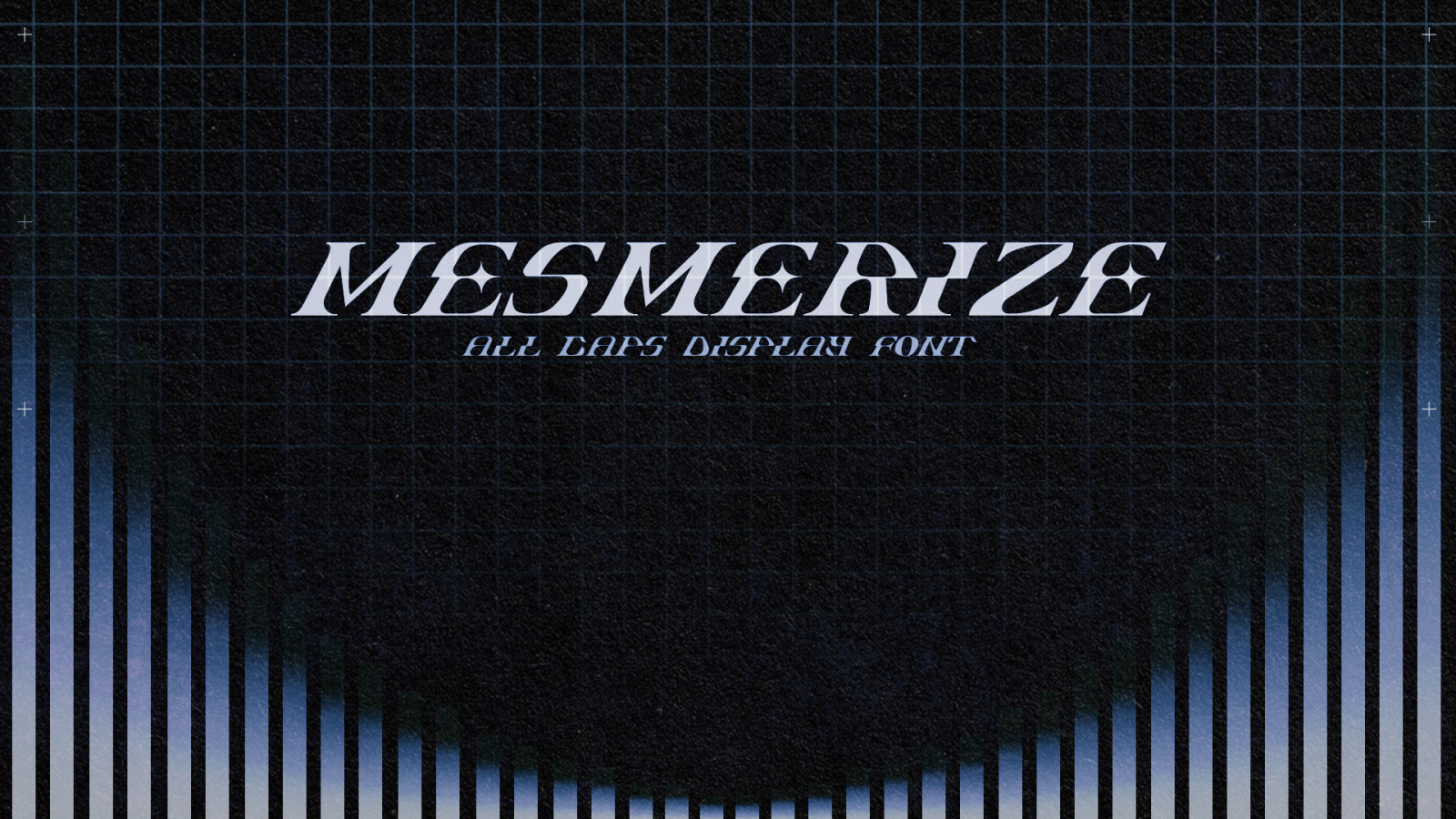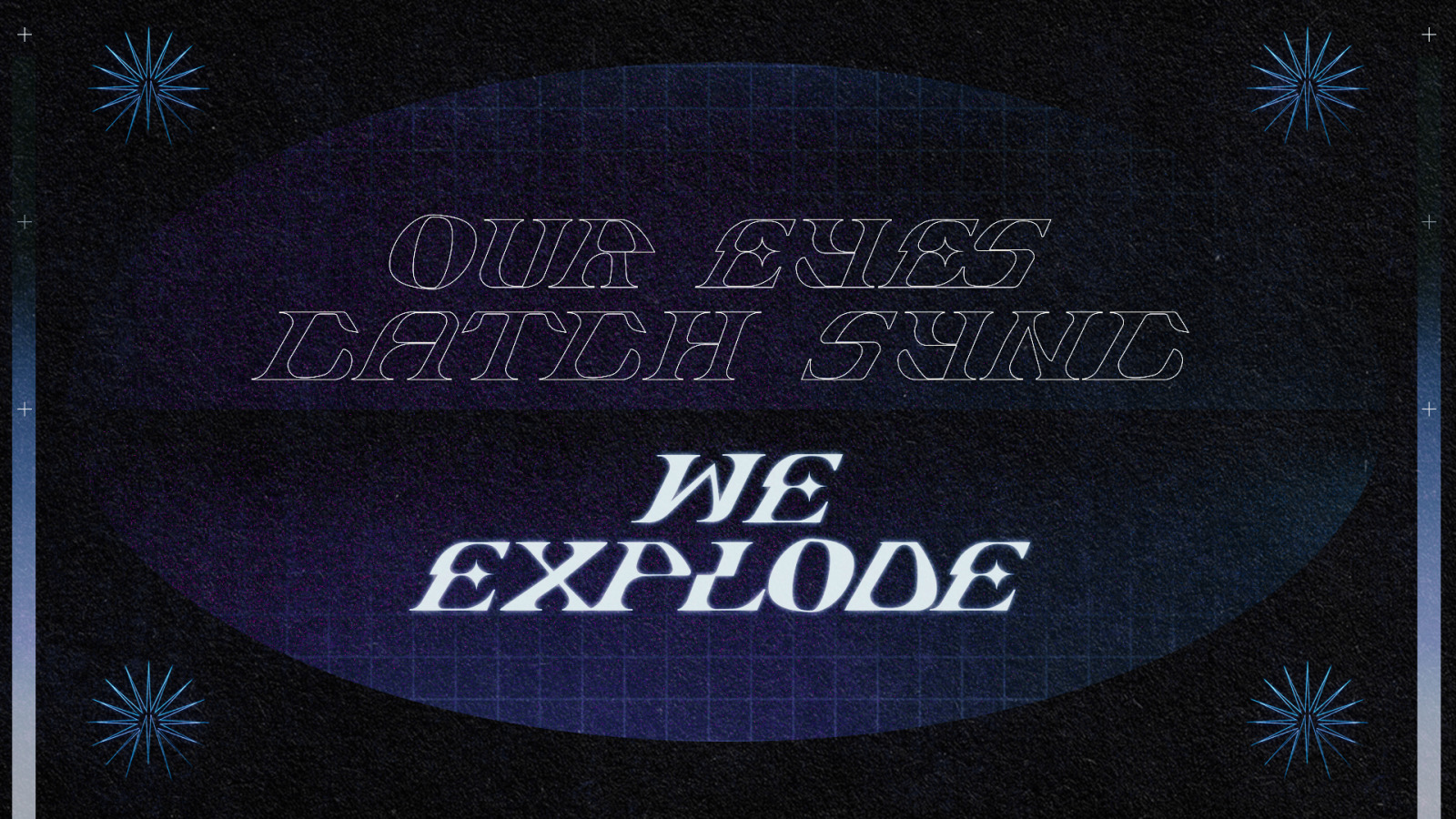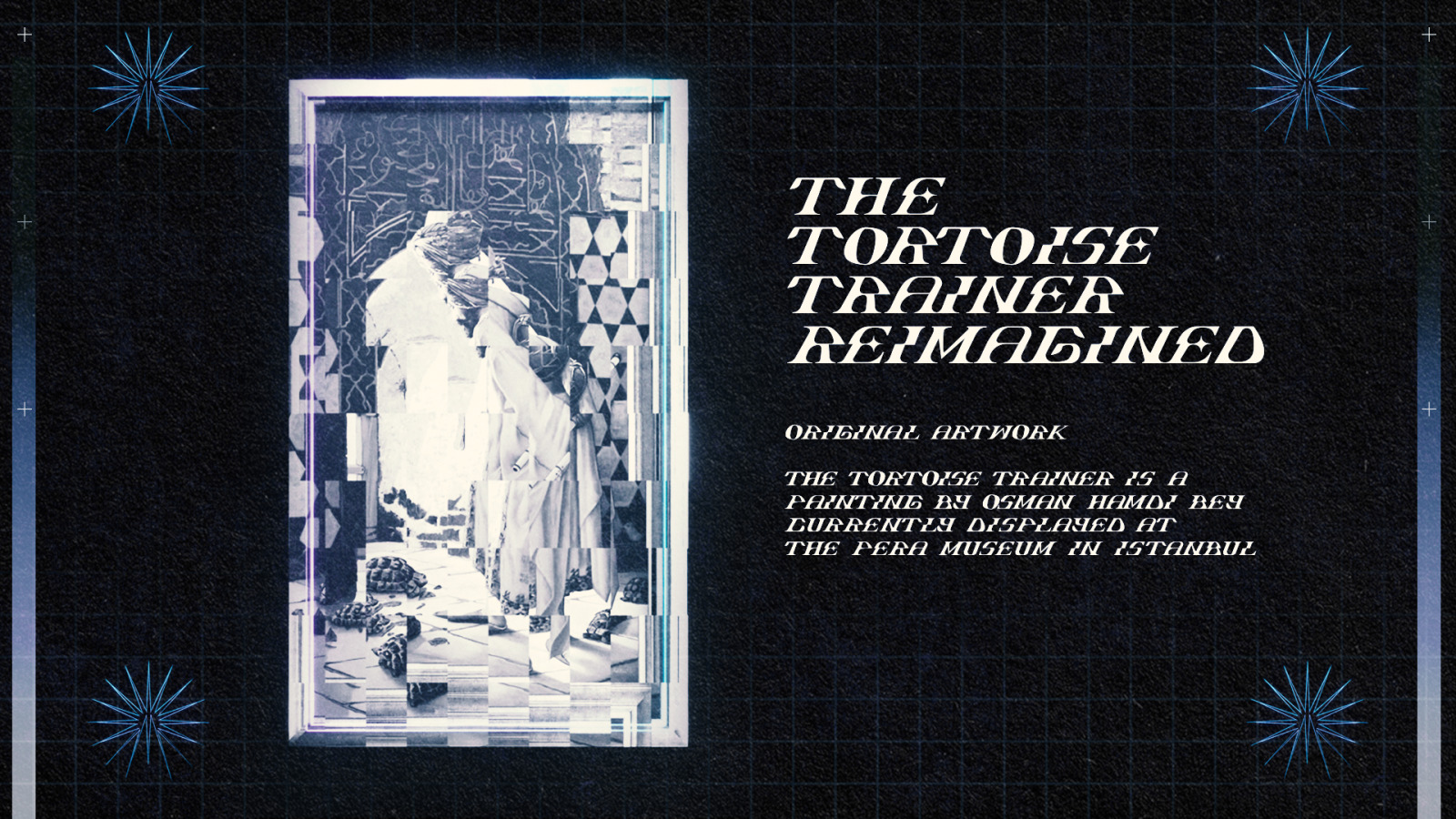
MESMERIZE / Display Font
Mesmerize is a multipurpose All-Caps Display Font, inspired by the form harmony and balance of space and time. This eclectic form consists of soft curves followed and supported by harder edges.
Its slanted structure draws a vibrant and dynamic stance, making it perfect for all kinds of visual arts like album artworks or poster designs. Visually thinner characters also have been slit by half so they don't get crushed between wider characters.
Handdrawn in Adobe Illustrator.